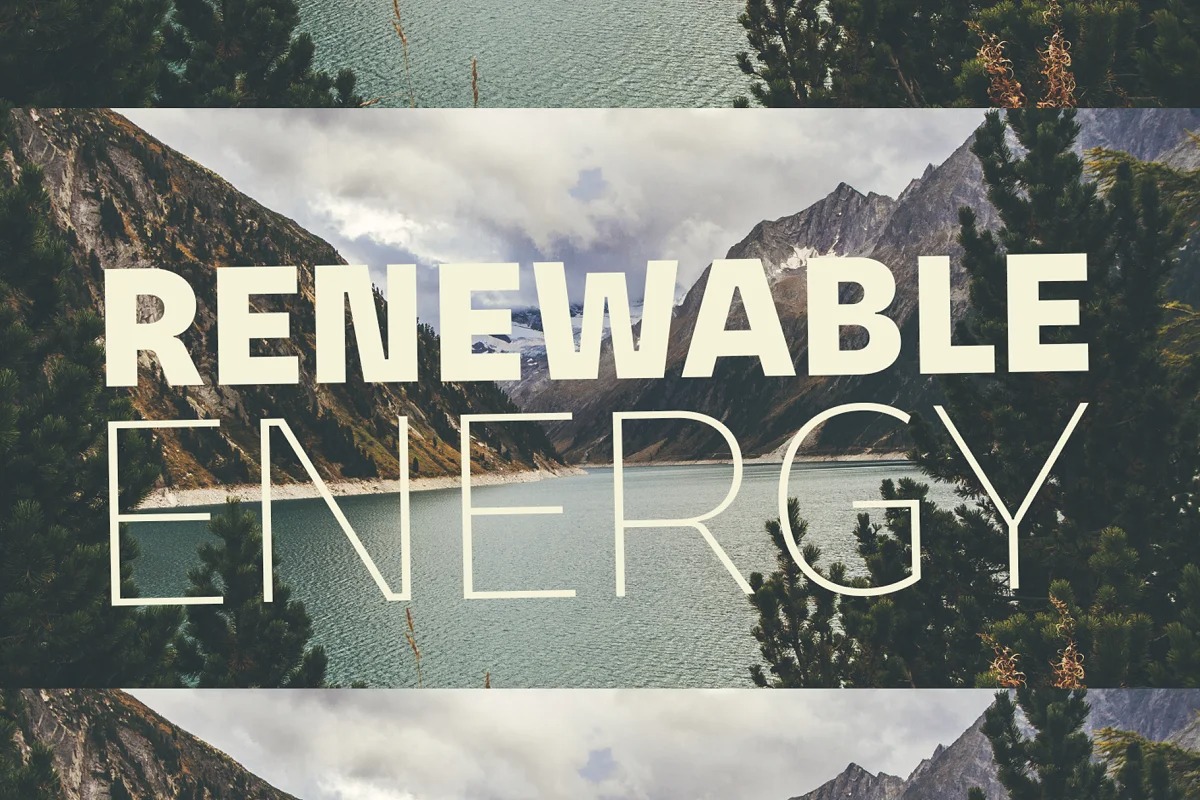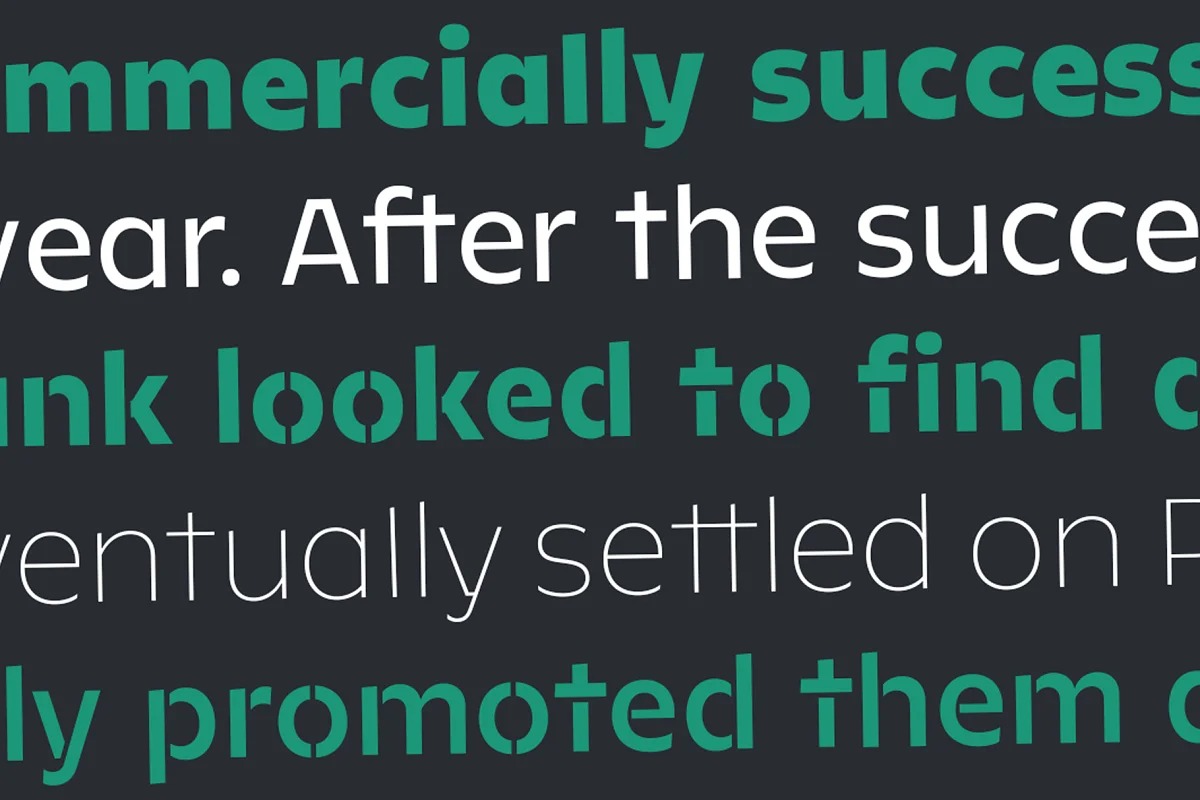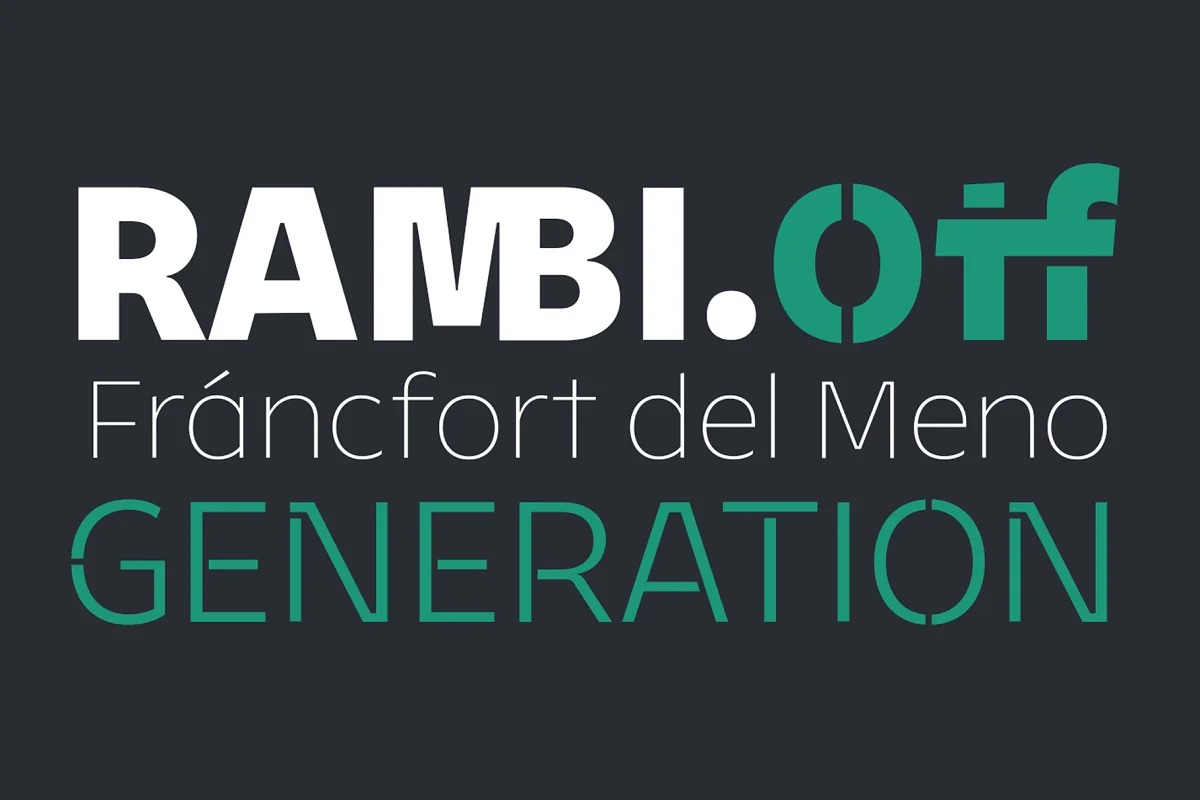
Meche Pro Font
Meche Pro Sans Serif Font
This font is modern geometric sans serif family with display elements. Made from font designer named Rodrigo Typo. It is a typeface with a semi-formal touch, it contains 12 variants, from the Thin to Black and Stencil Thin to Black versions, plus Cyrillic alphabet with alternatives and different ligatures was added, especially for titles.